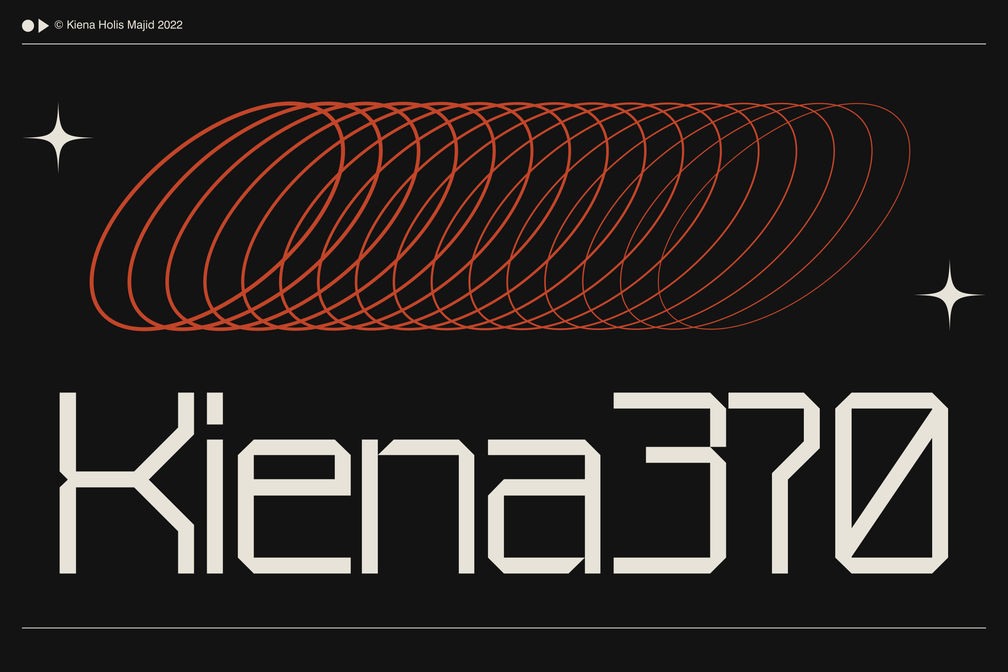
Kiena Modern Display
Inspired by modern flavors on the internet, such as robots, machine designs. Has a small but clean form, available Uppercase, Lowercase, several Symbols, Punctuation, and supports multilingual. Perfect for logo designs, movie posters, product posters, company branding or products that require a clean and modern font touch.